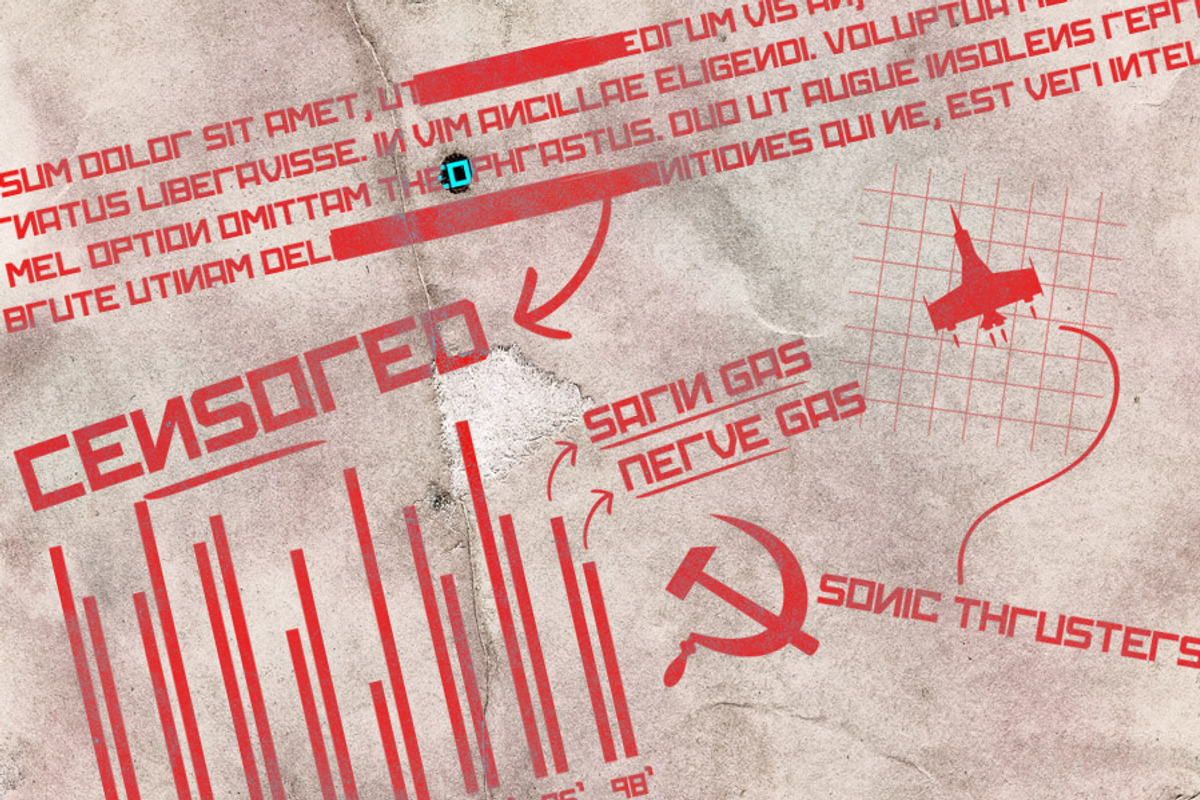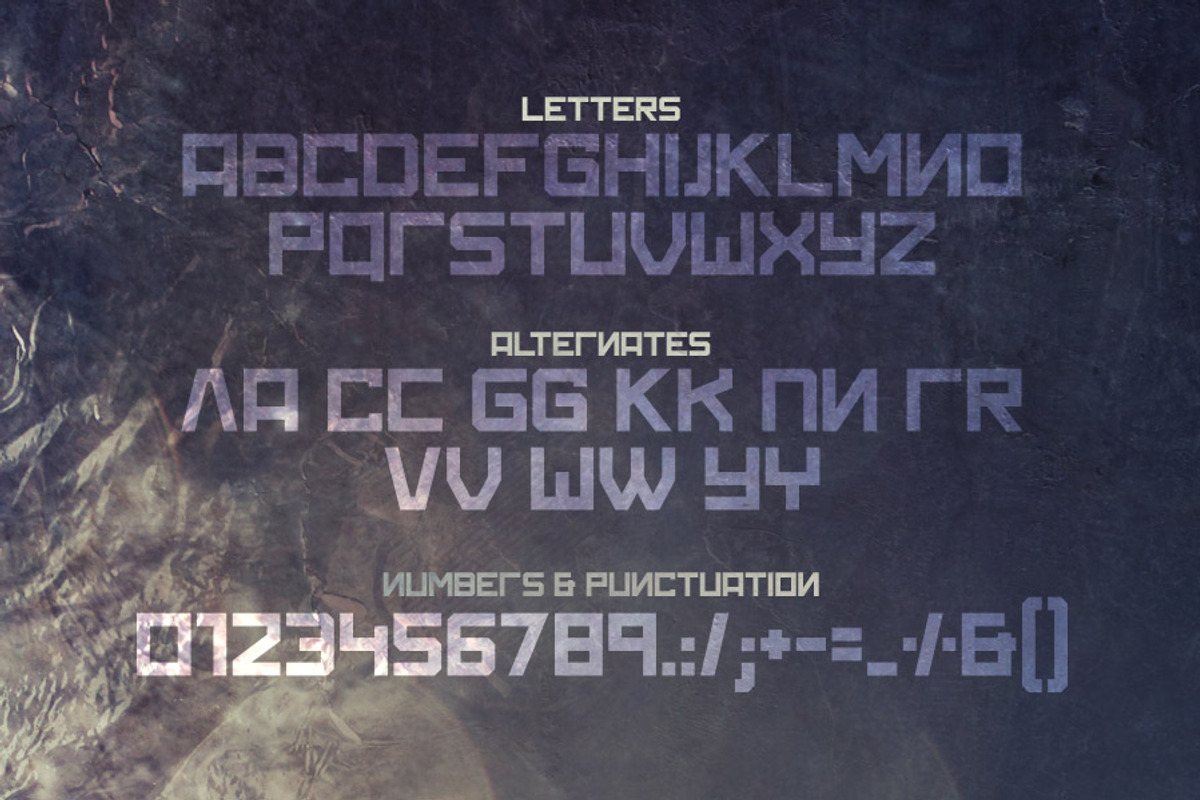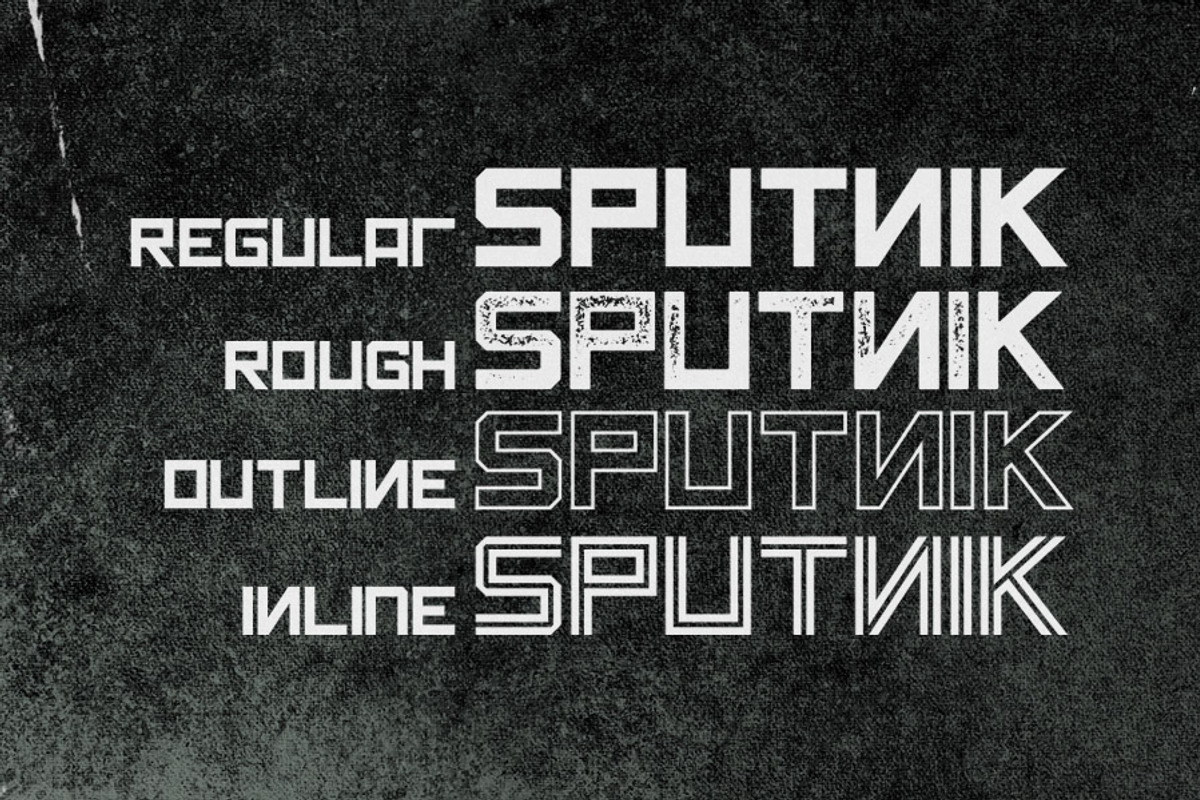
Sputnik Typeface
Sputnik Typeface by Tugcu Design Co. is a font selected for branding, posters, packaging, typography.
- It includes uppercase English letters, some of which have alternates, numbers and simple punctuation.
Why Sputnik Typeface is worth a look
Sputnik Typeface by Tugcu Design Co. fits naturally into Branding, posters, packaging, typography.